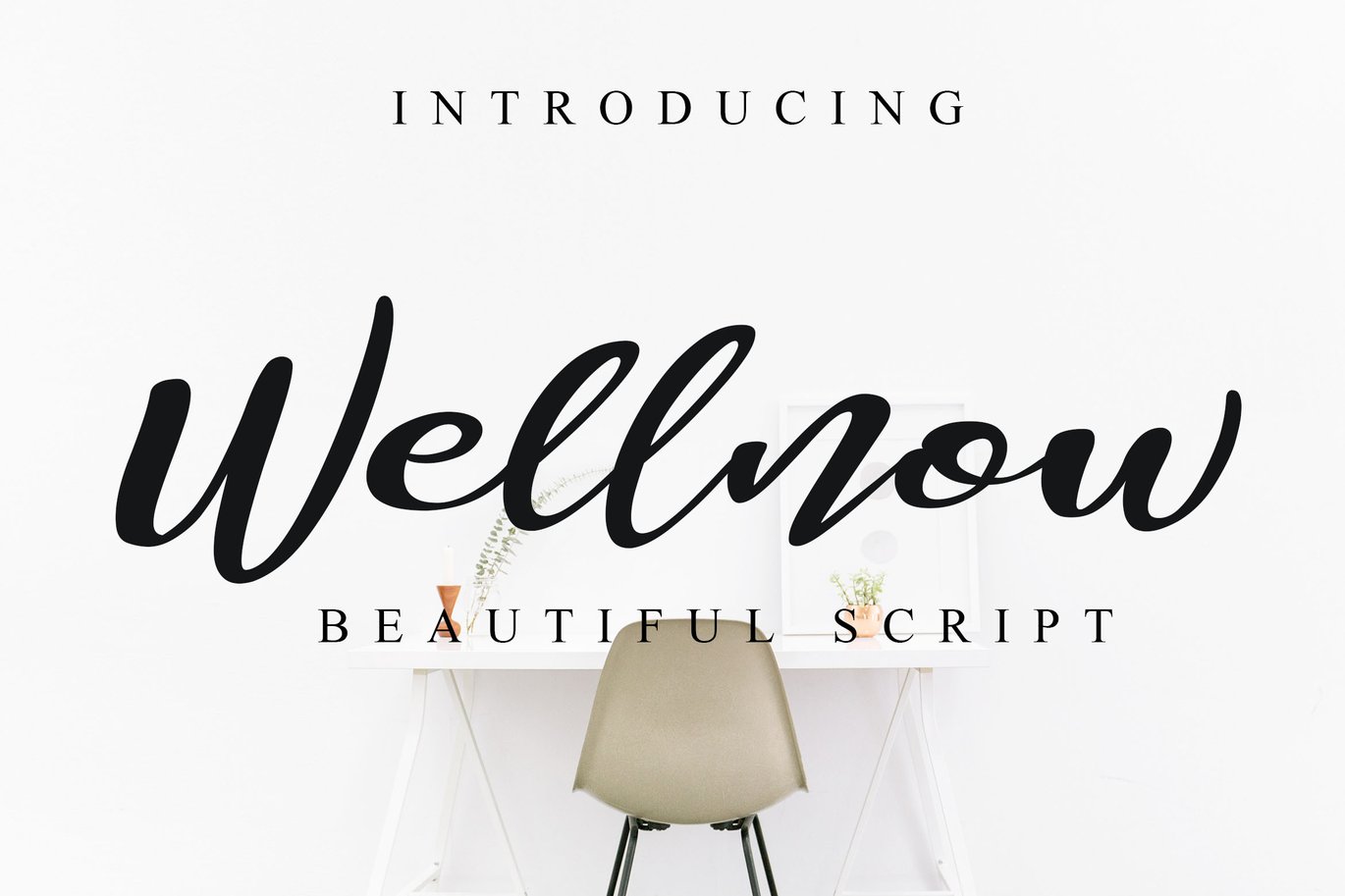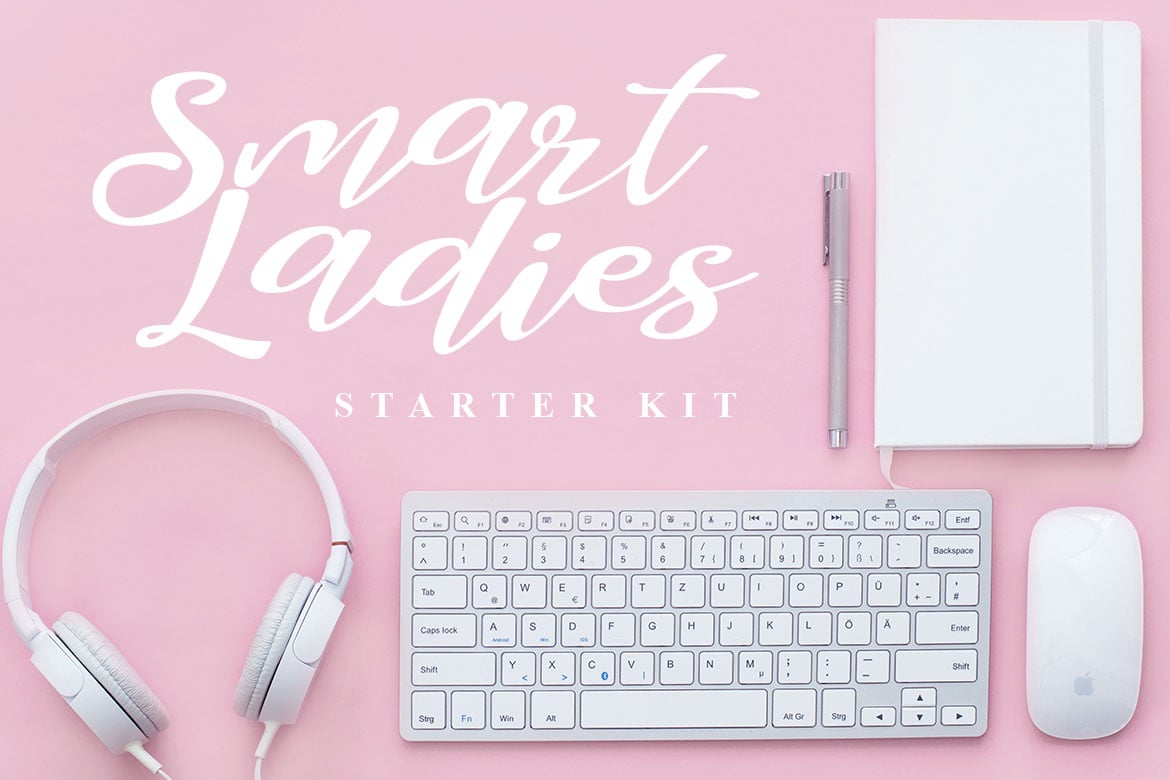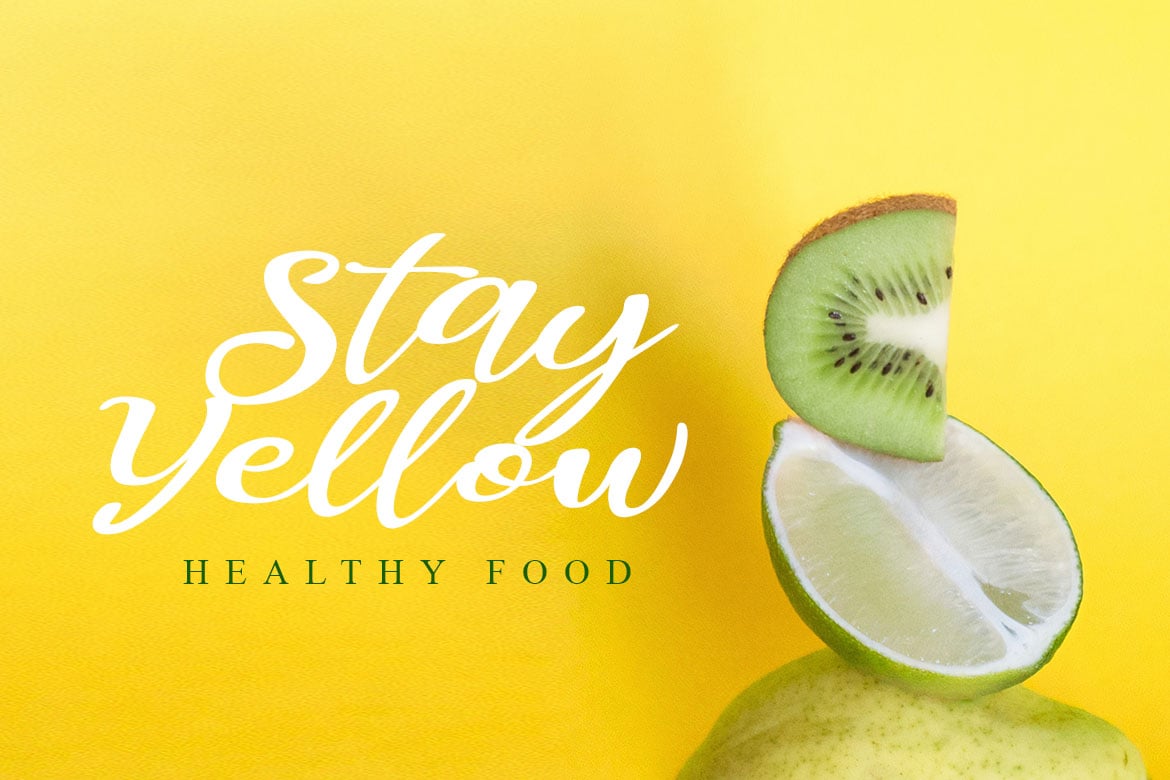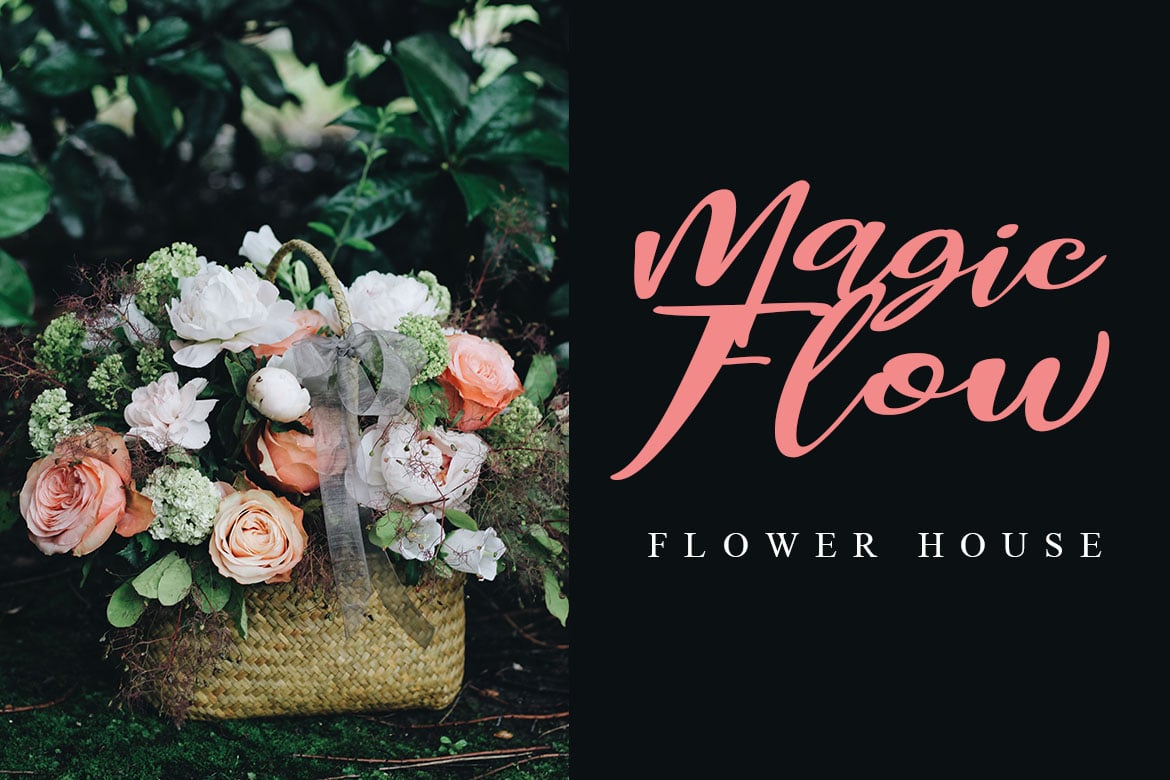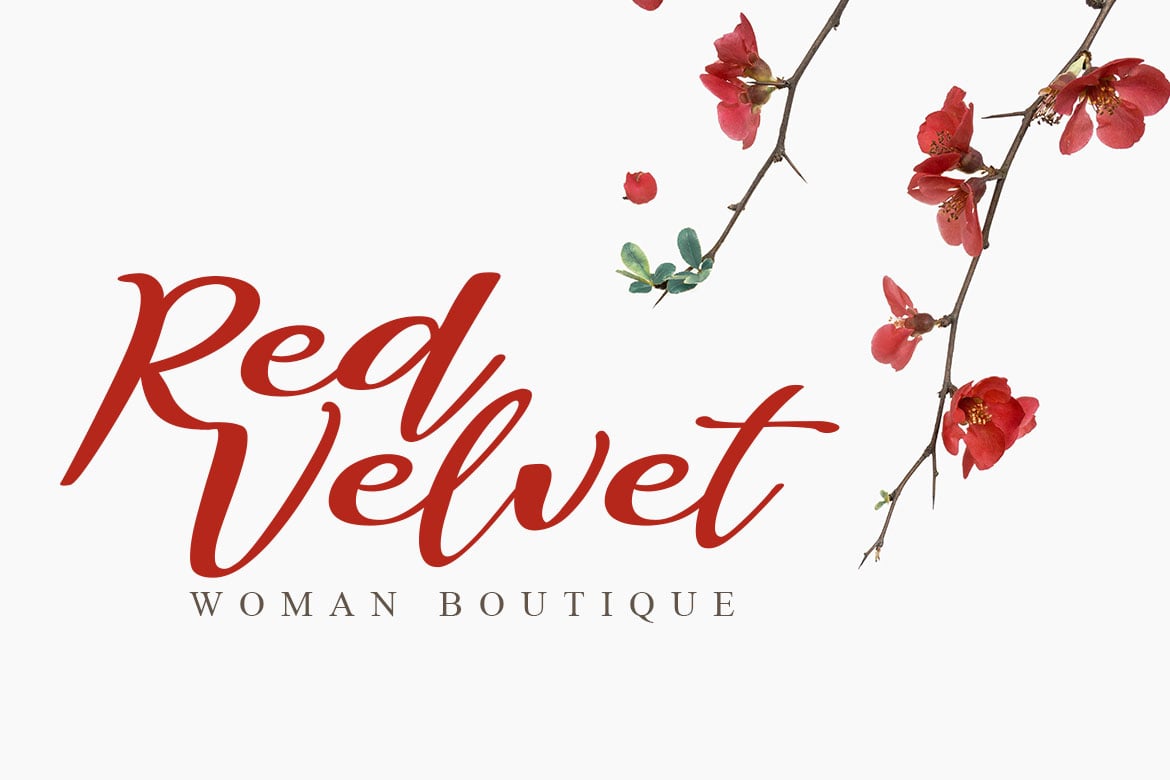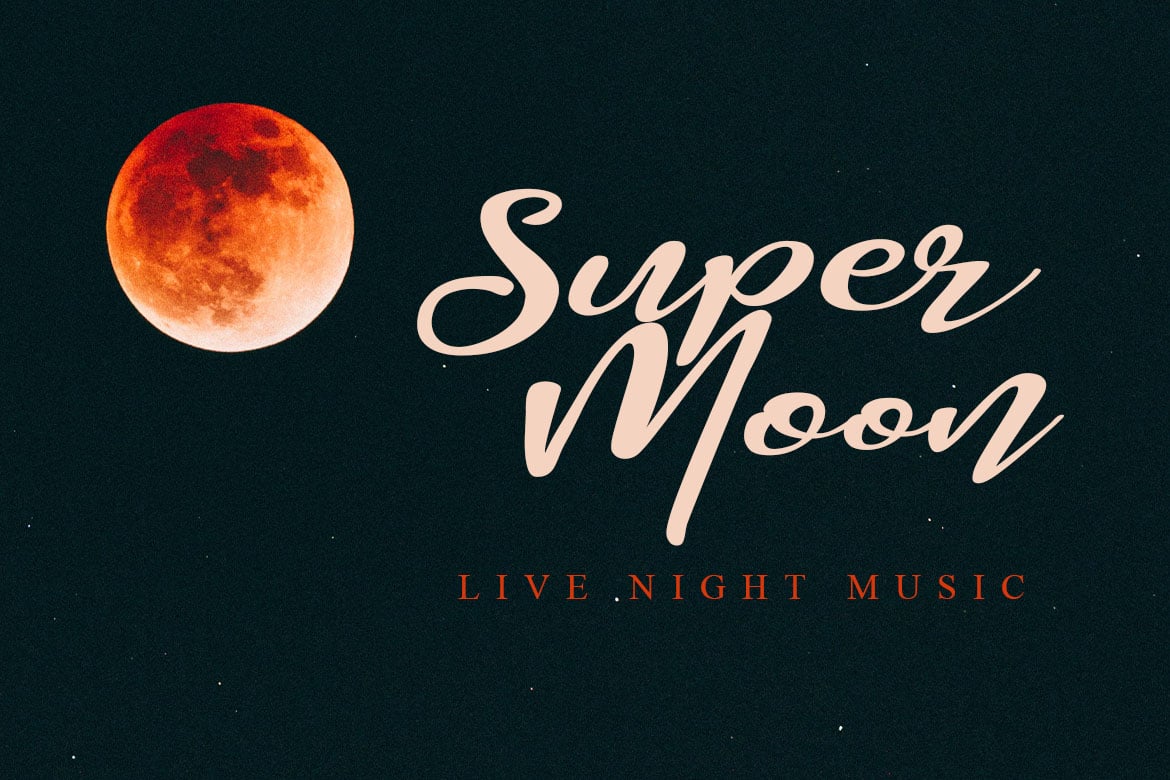
Wellnow Beautiful Font
Wellnow Font is beautiful and allowing you to make great typography. Wellnow is good for logo, brand, poster, quotes, wedding invitation, clothing, and apparel.